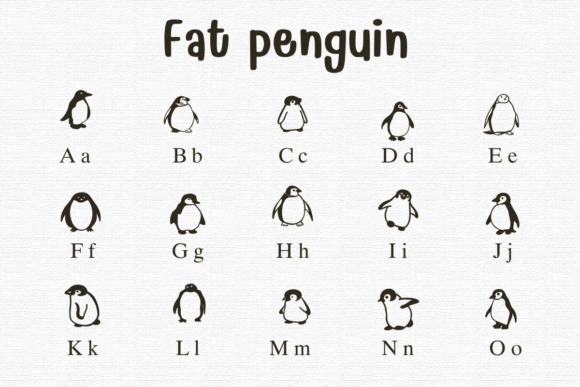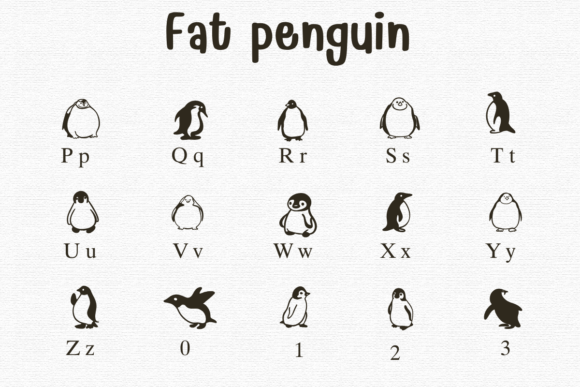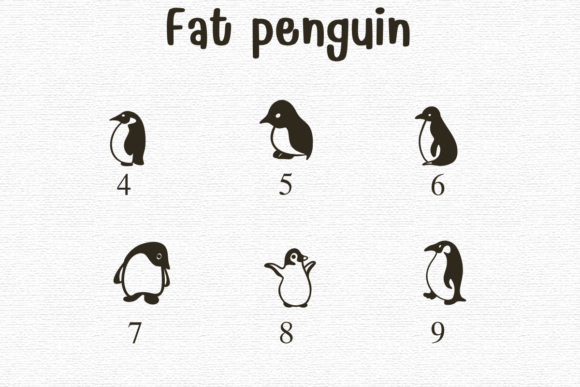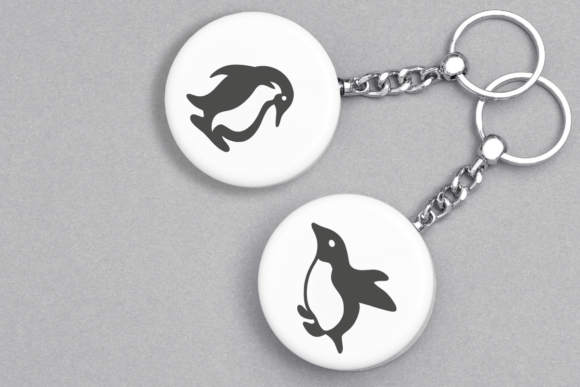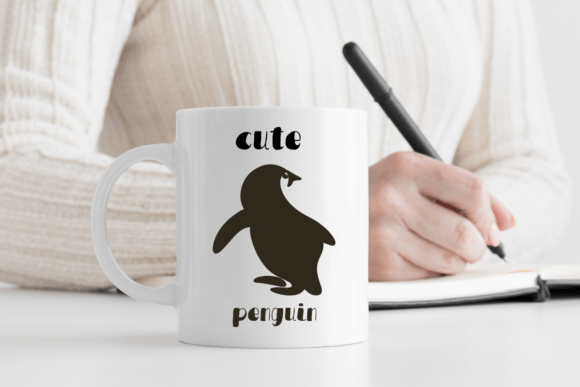
Introduction to Fat Penguin Font
Who hasn’t experienced that magical moment when inspiration strikes, and a creative project begins to take shape? Perhaps it’s a children’s book, a school project, or even a social media post – whatever it is, having the right design resources can make all the difference. For designers and creatives, finding the perfect font can be a game-changer, and that’s exactly what the Fat Penguin Font offers.
This adorable, chunky dingbats font is not just a pretty face; it’s a high-quality design resource that embodies playfulness and authenticity. With its transparent background and free download option, Fat Penguin Font is the perfect choice for any creative project that requires a touch of whimsy and charm.
Key Features of Fat Penguin Font
- Features a unique, playful design with a fat penguin character, perfect for adding a touch of whimsy to any project.
- Designed with a modern, clean aesthetic, making it a great choice for creative projects, from logos to branding materials.
Honest Review: Fat Penguin Font
As a designer, I’m always on the lookout for high-quality design resources to enhance my creative projects. Recently, I stumbled upon the Fat Penguin Font, and I’m excited to share my honest review with you.
- What works well: ✨ The Fat Penguin Font is incredibly versatile, with a unique and playful style that’s perfect for projects that require a touch of whimsy. The font is also highly customizable, making it easy to adjust to fit your specific design needs.
- ⚠️ The Fat Penguin Font doesn’t offer a transparent background option, which may limit its use in certain design scenarios.
- ⚠️ The font may not be suitable for projects that require a more formal or professional tone, as its playful style may not be taken seriously.
Overall, I’m impressed with the Fat Penguin Font, and I’d highly recommend it for designers working on creative projects that require a touch of personality. With its high quality and customization options, it’s an excellent addition to any design resource library.
The Fat Penguin Font is a unique and versatile design resource that can elevate your creative project to the next level. With its high-quality design and transparent background, it’s perfect for adding a touch of whimsy to your visual content.
The Fat Penguin Font is perfect for a variety of creative projects, including:
- Birthday invitations and party decorations
- Children’s book illustrations and storybooks